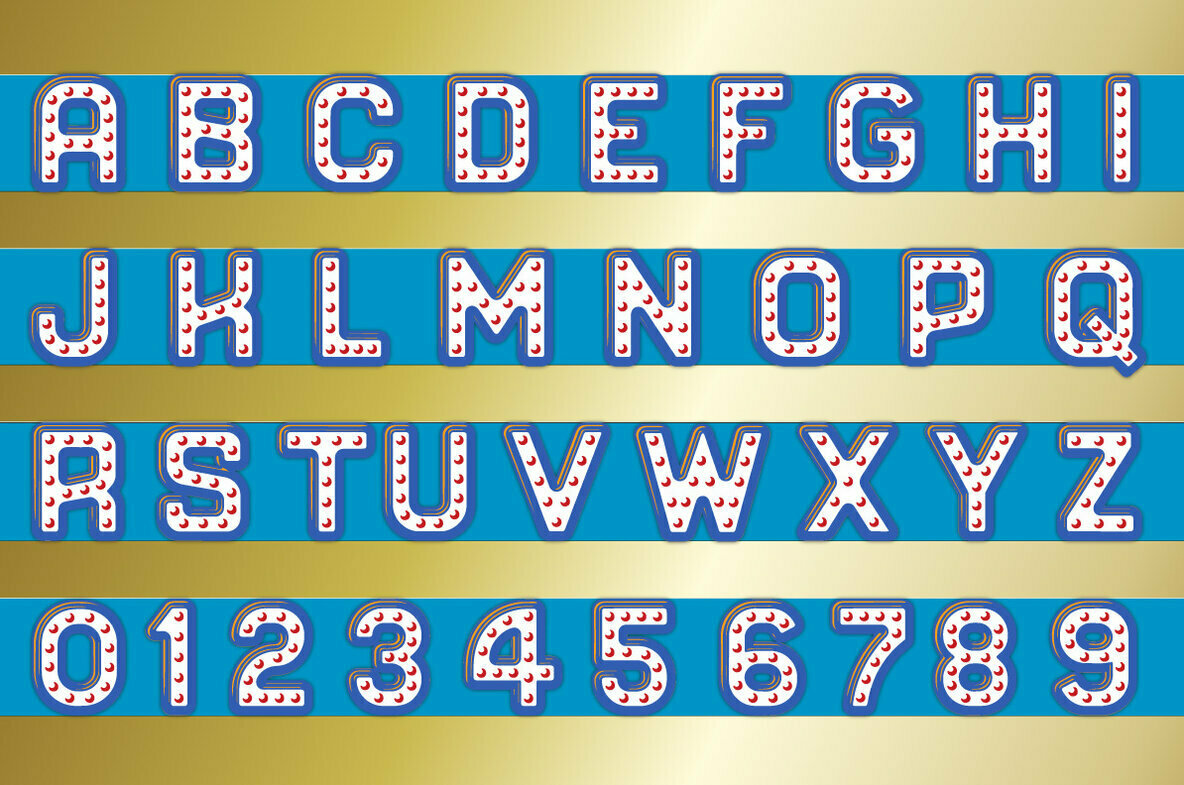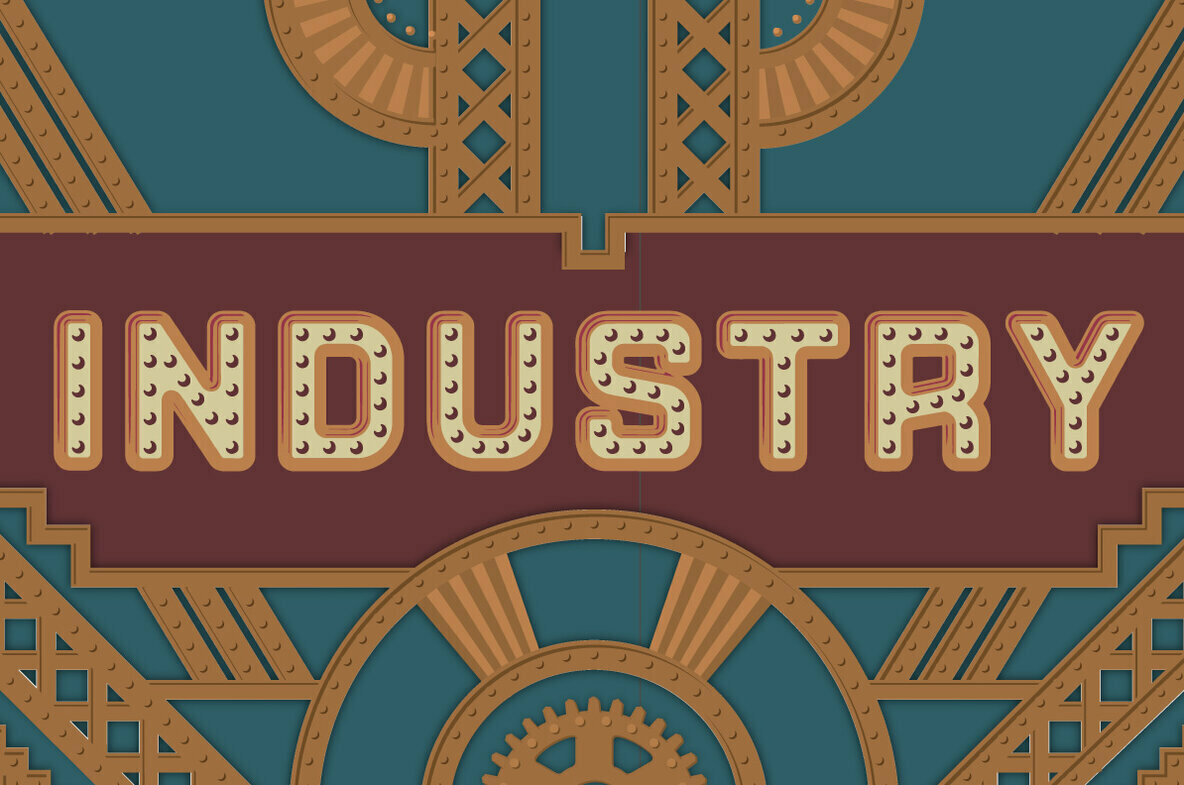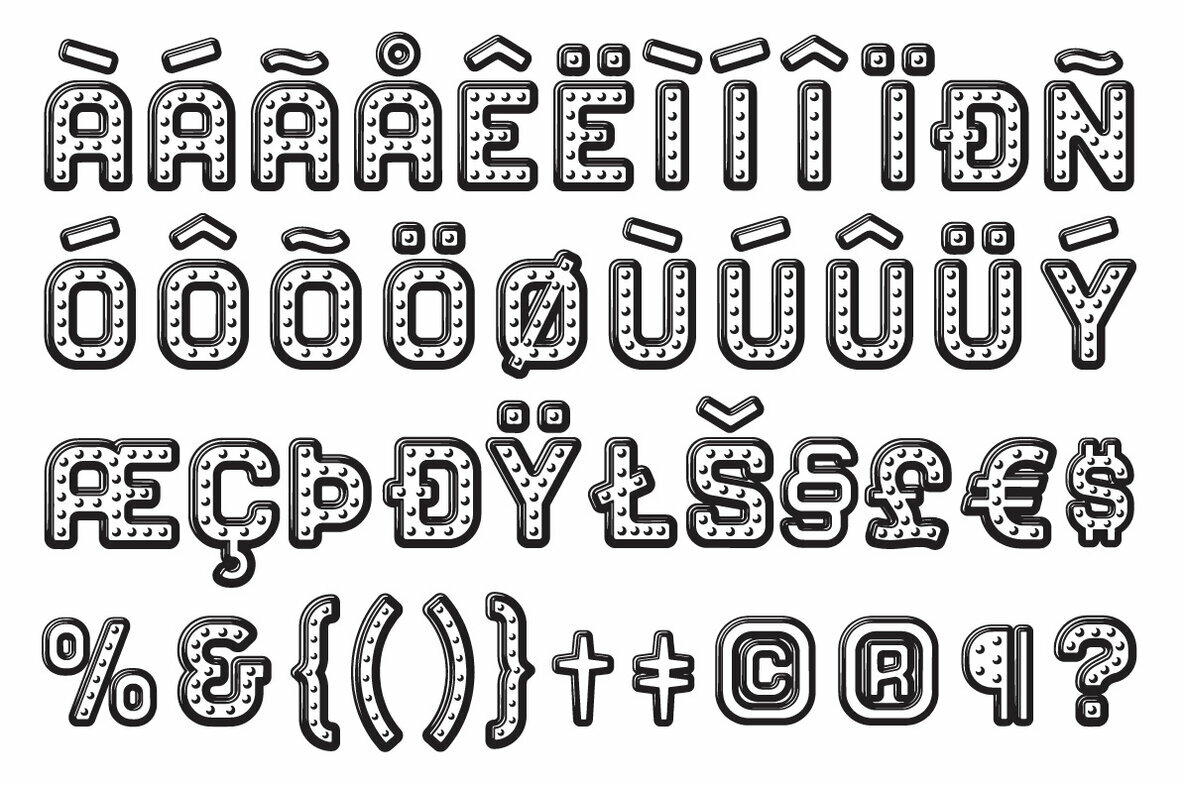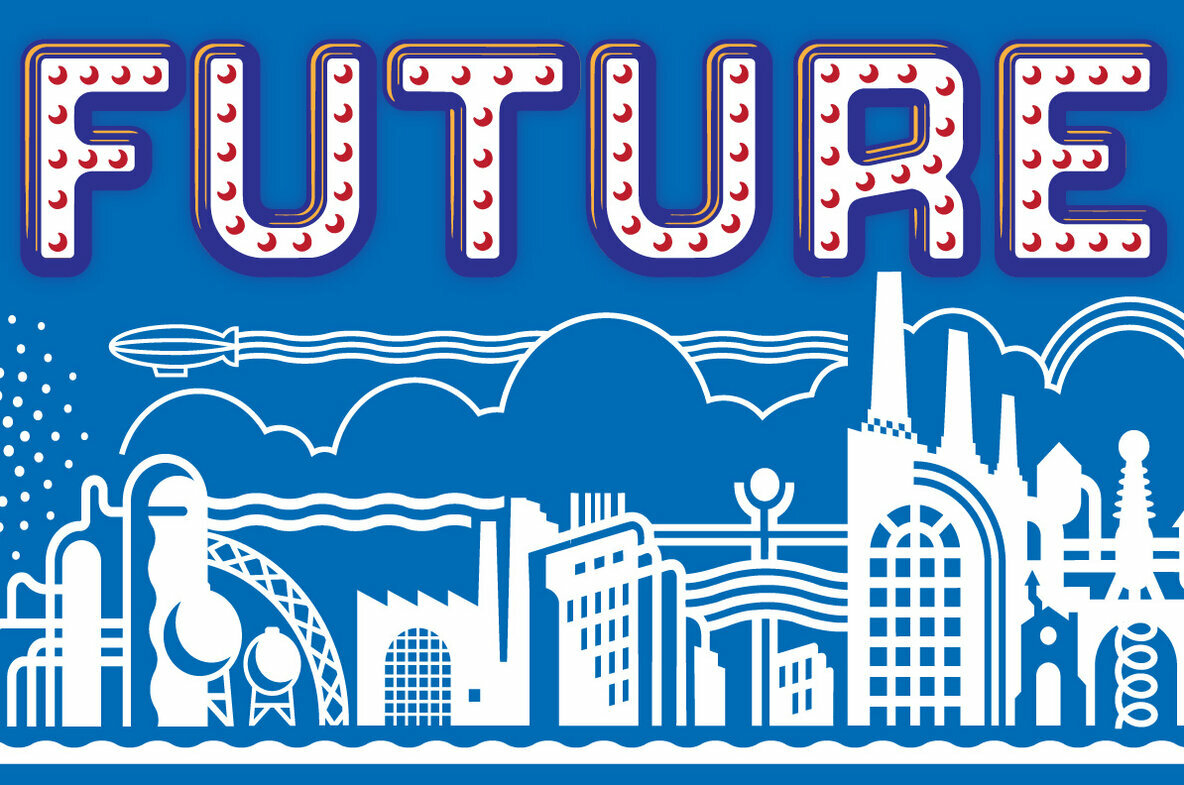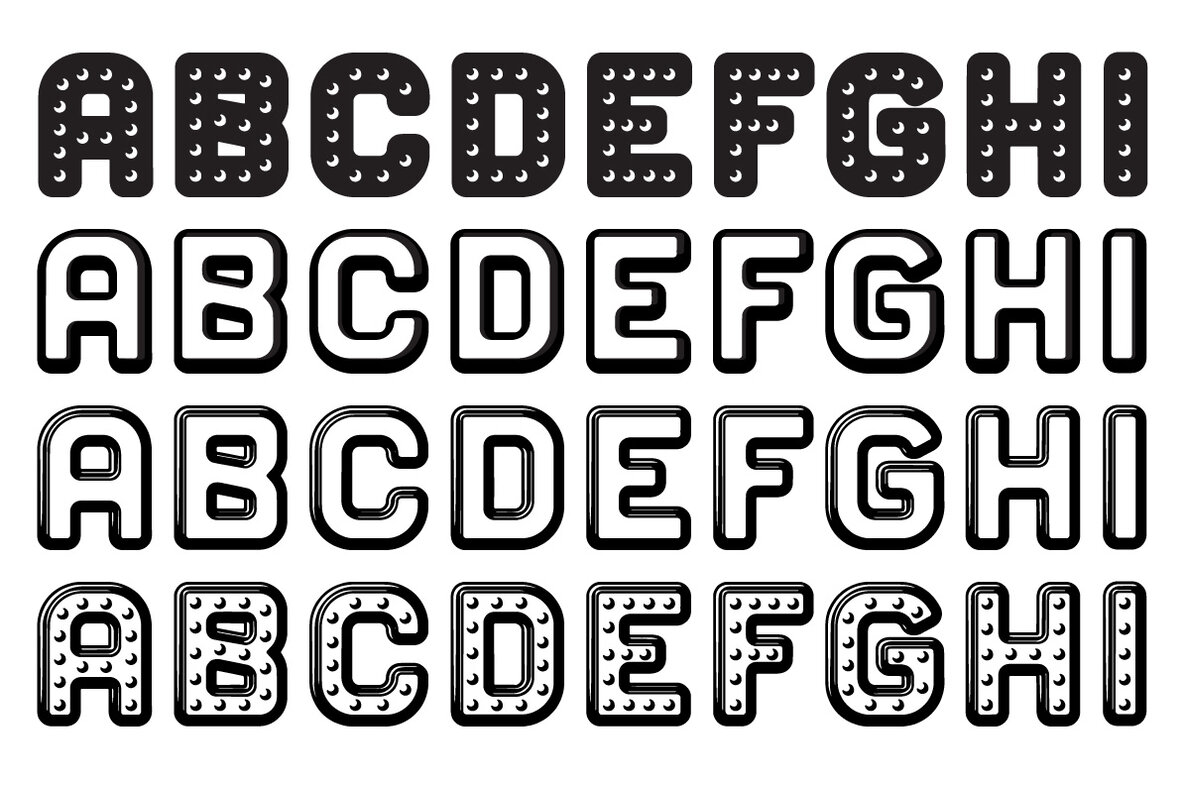
Rivets Font
Rivets is a result of my fascination with the beauty I find in utilitarian industrial objects like the riveted stanchions in New York subway stations, decorative ironwork in Grand Central terminal and the eloquent construction details of the urban infrastructure of the 19th and early 20th century.
It began its life as die-raised sign typography for a magazine cover assignment, developed further for a book cover about mid-20th century American manufacturing and evolved into a complete font plus four individual components suitable for producing multiple color variations.